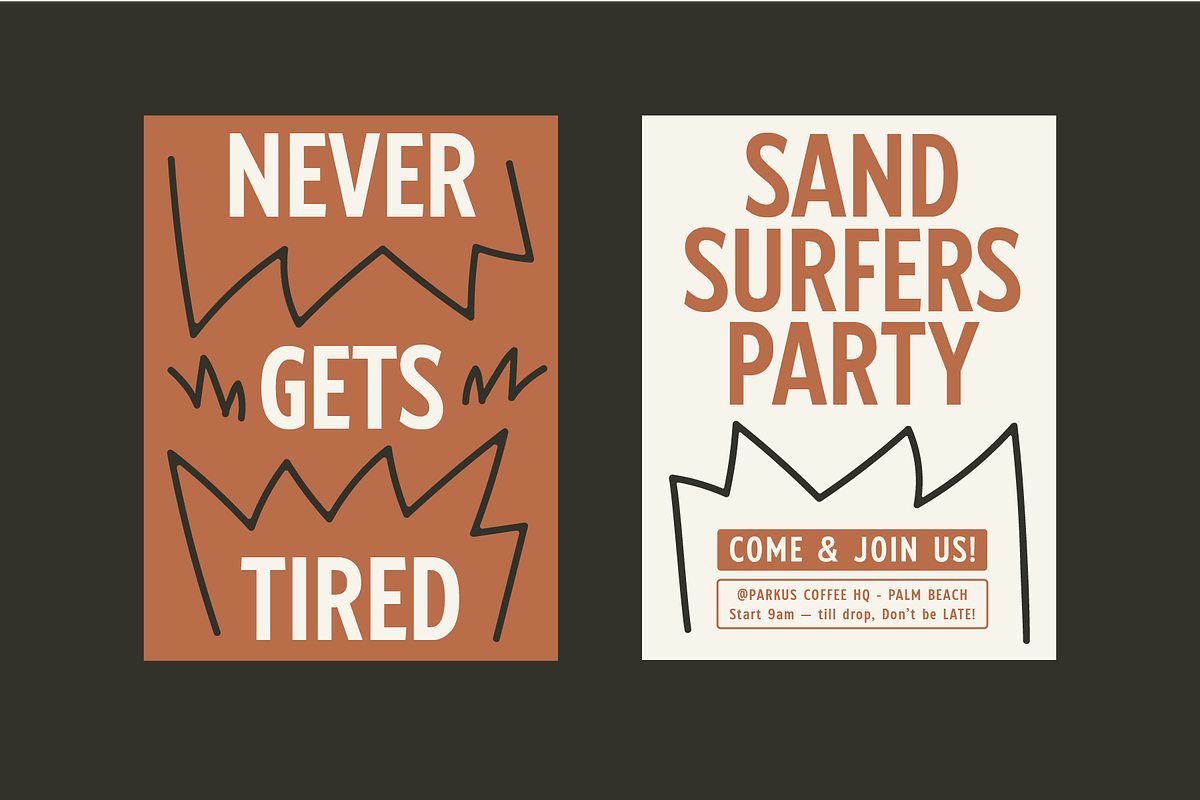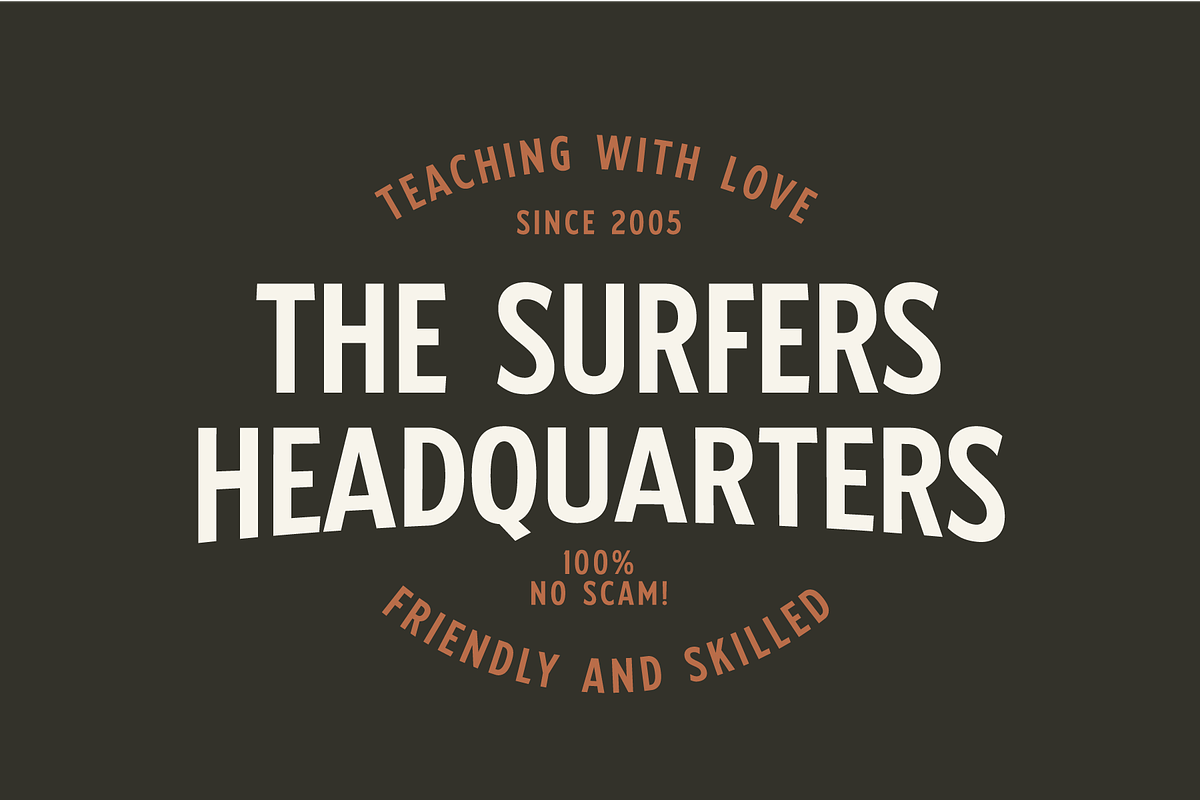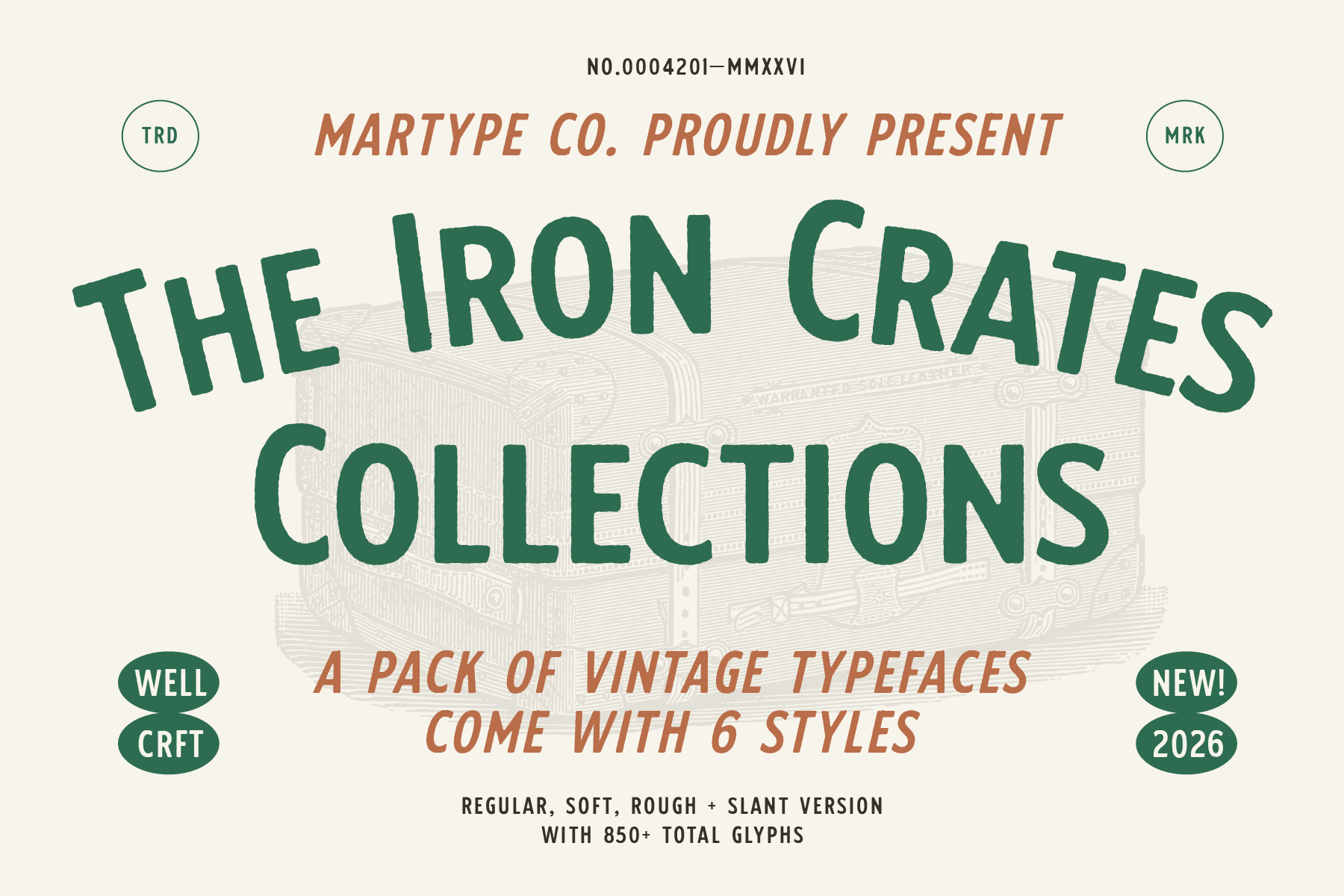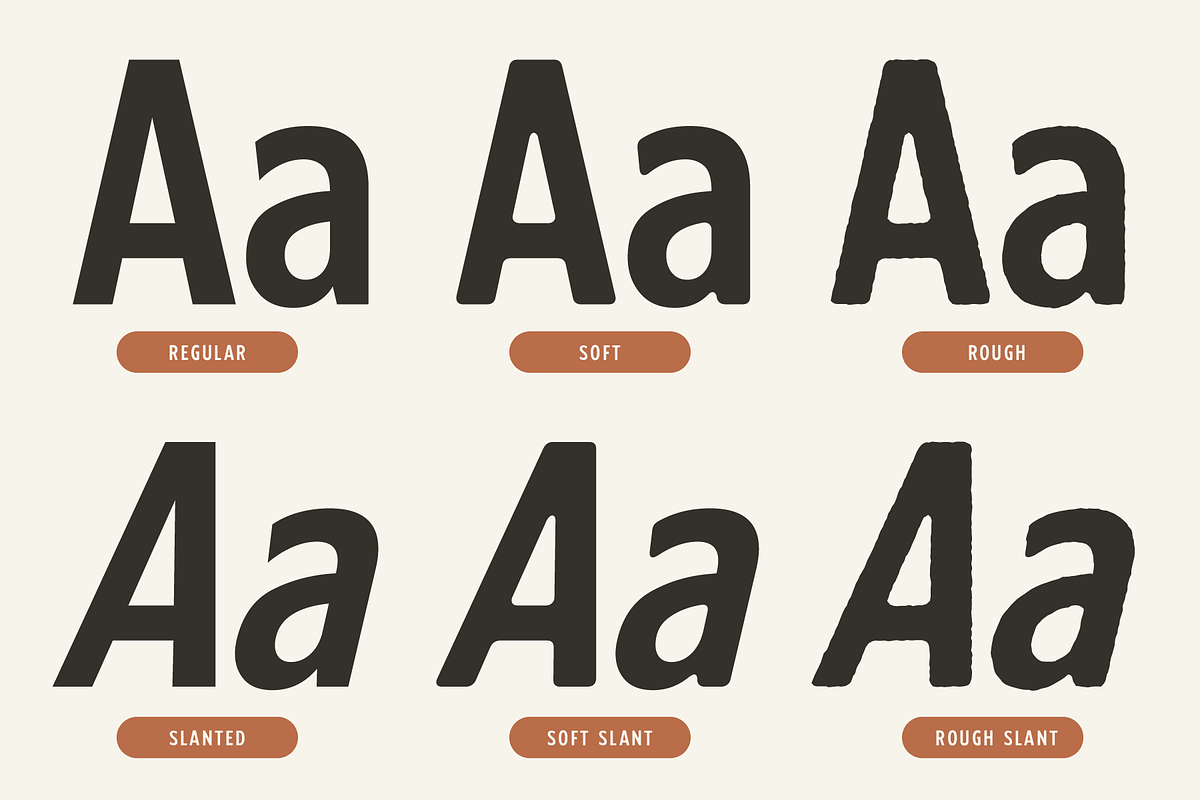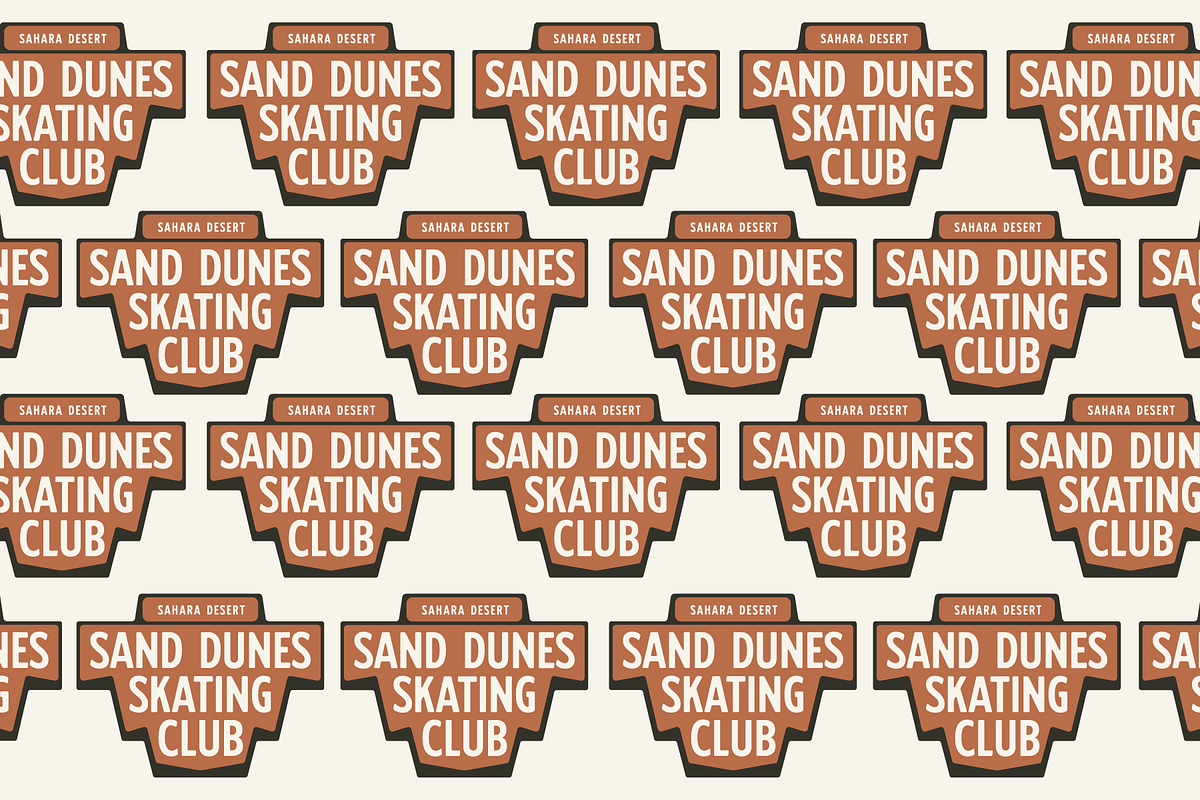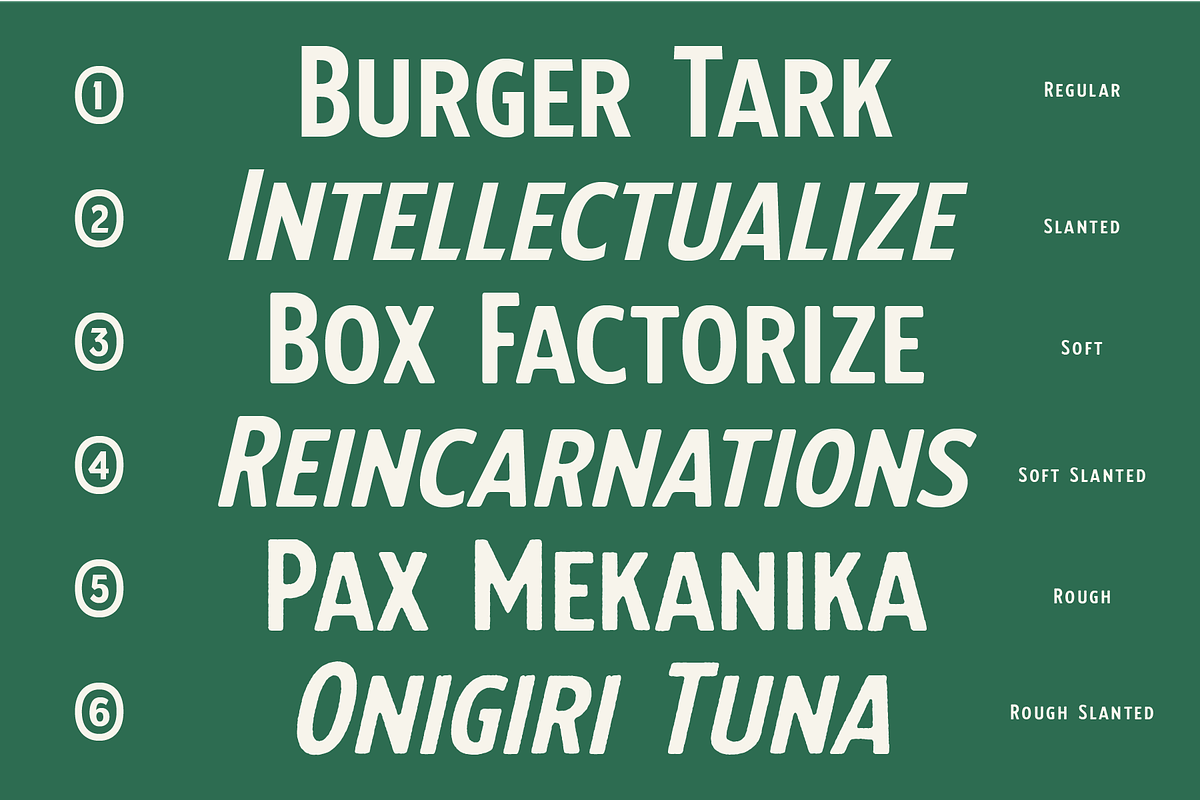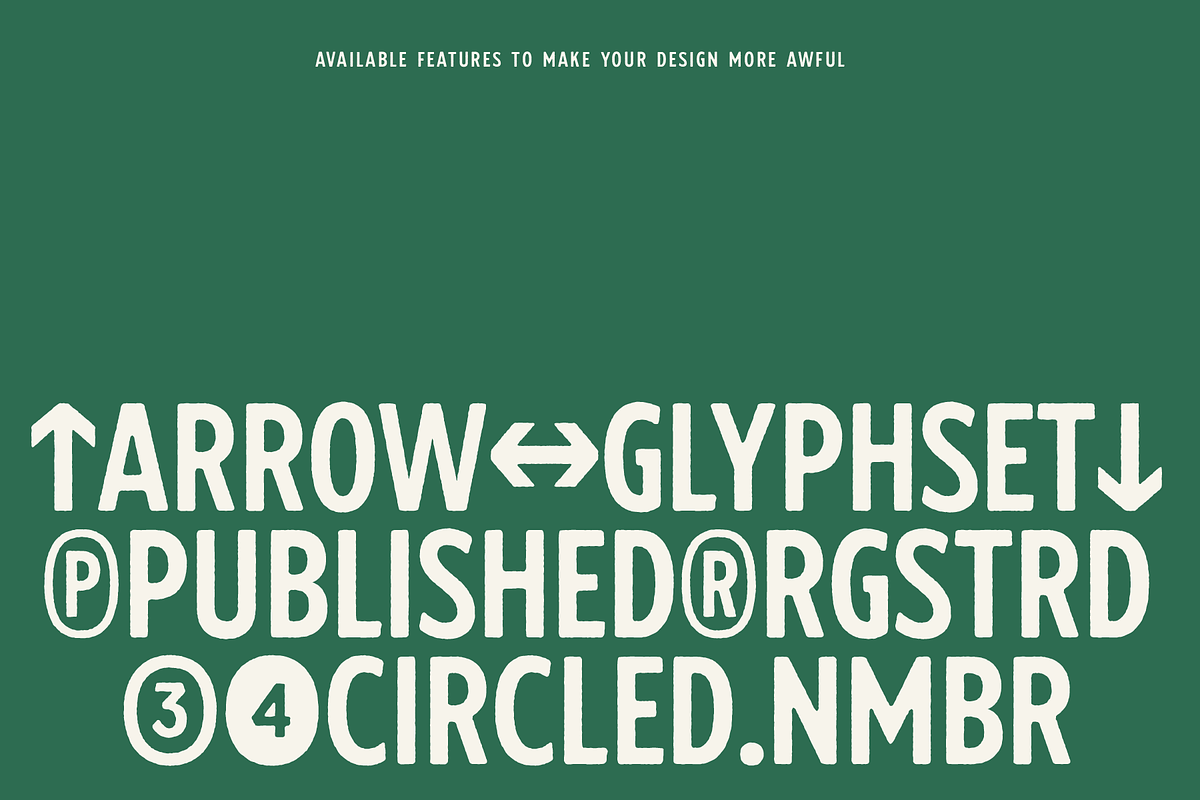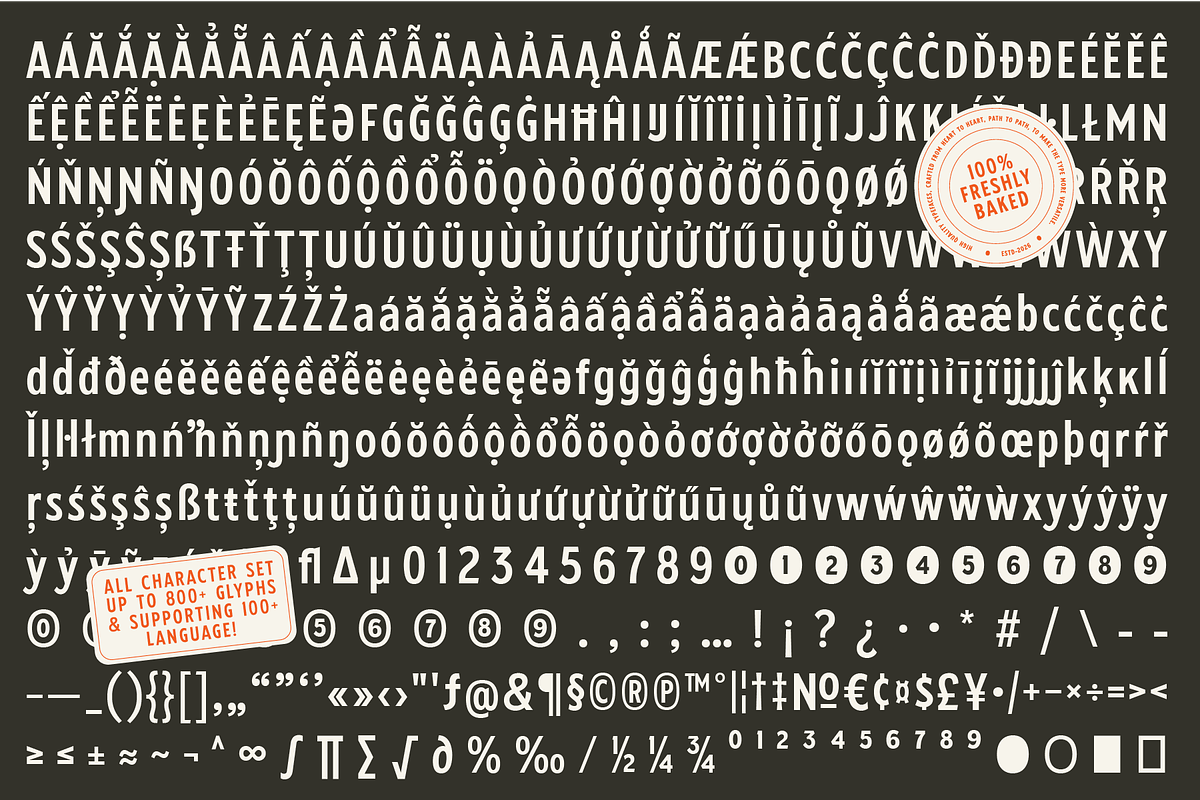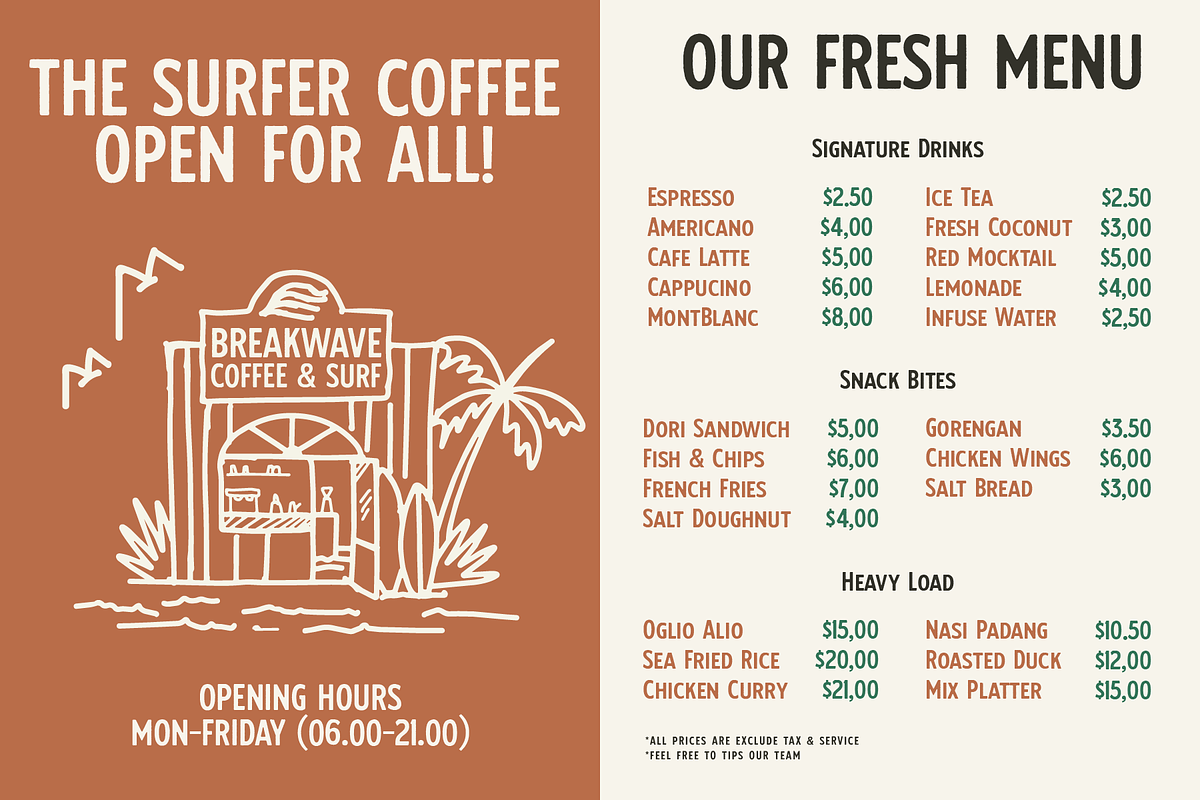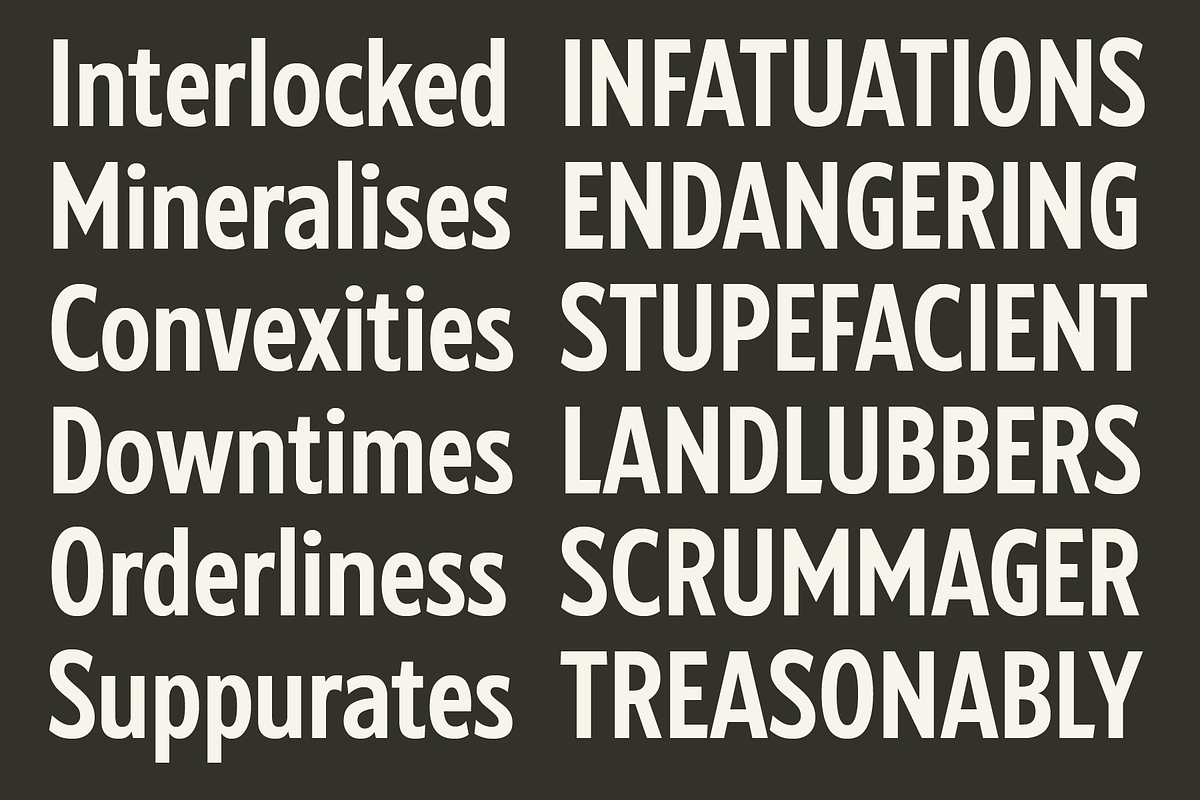
Iron Crates - A Sans Font Collection
Inspired by the typography found on vintage wooden crates, old warehouses, and mid-century packaging, The Iron Crates Collection captures the spirit of classic craftsmanship. Its bold curves and subtle imperfections create an authentic retro aesthetic that's perfect for branding, logos, labels, coffee shops, breweries, outdoor brands, and lifestyle products.
- Up to 800+ glyphs set to complete your language needs
- Opentype features: Stylistic Alternate, Sensitive Case, SmallCaps, and etc.
Comes with 6 styles to mix match your typography taste from celan, soft, to rough also available in slanted and regular version.